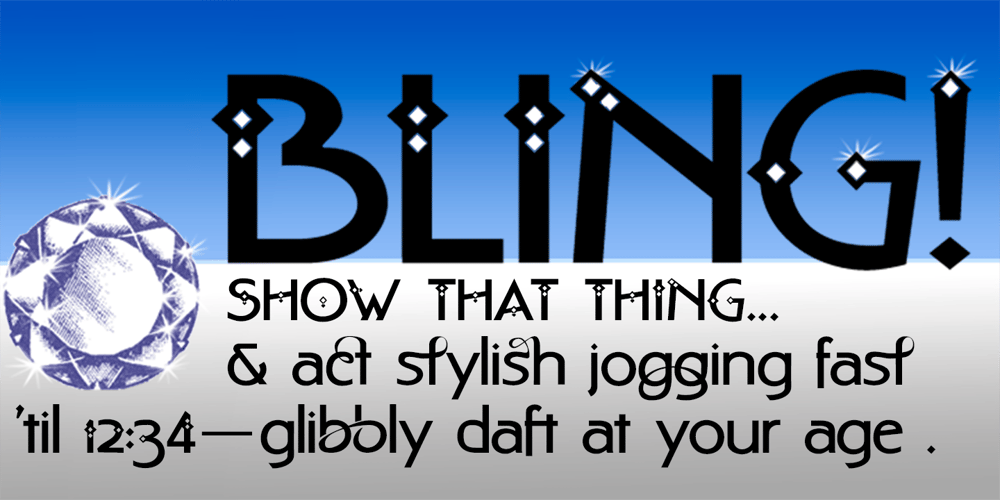
Bling
Bling font
Bling Font Family was designed by David Bergsland and published by Hackberry Font Foundry. Bling contains 1 styles and family package options. My second font for 2009, Bling is a hoot. This vaguely Deco, sparkly sans is for those heads that need bling. This is the first font released in a long time without my complete feature set. It has lining and oldstyle figures, many wild ligatures, the x-height is too high to make a small caps set worth the effort. It’s just for fun. Enjoy!